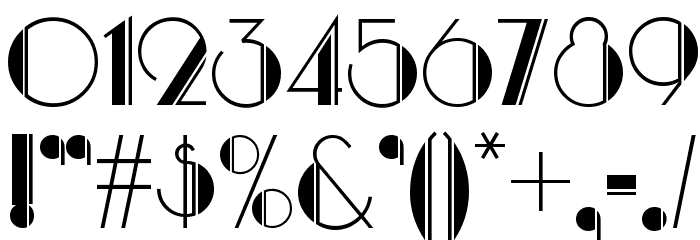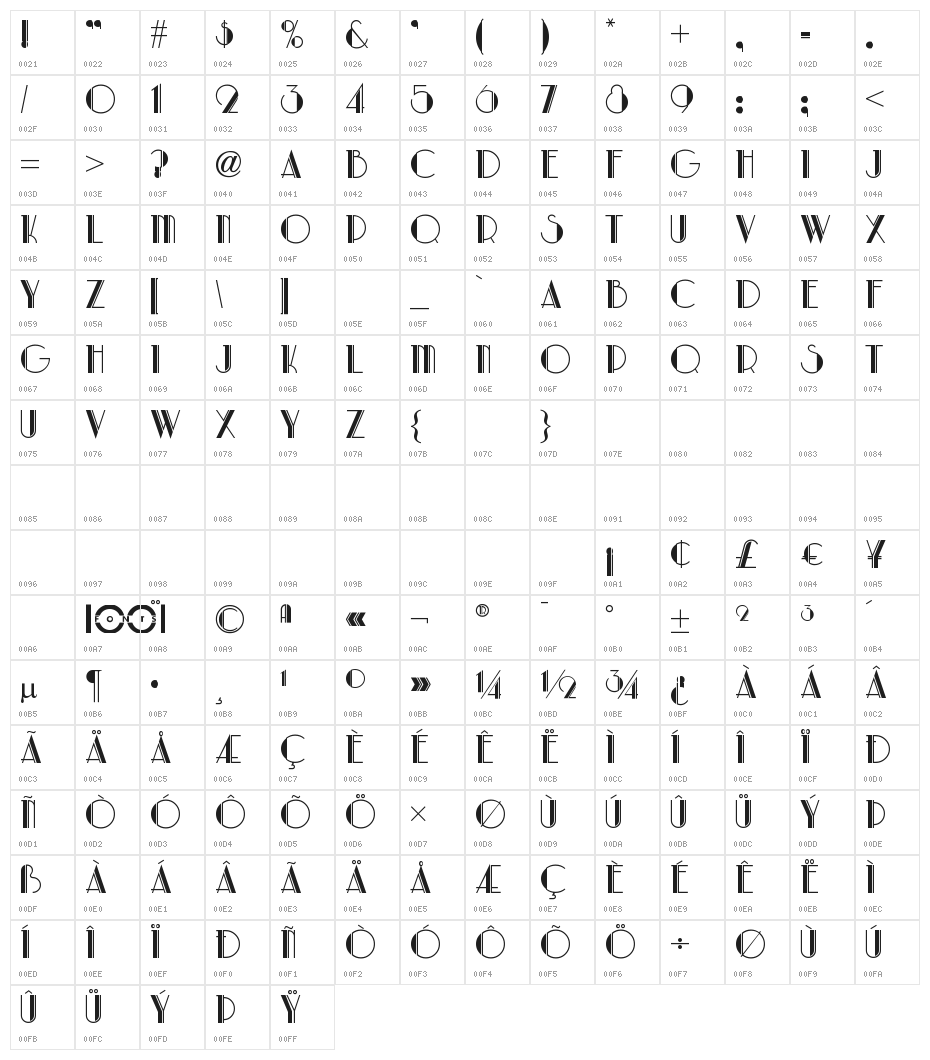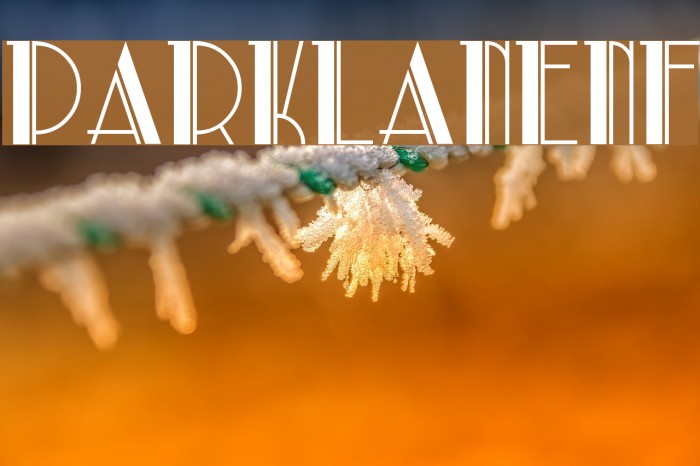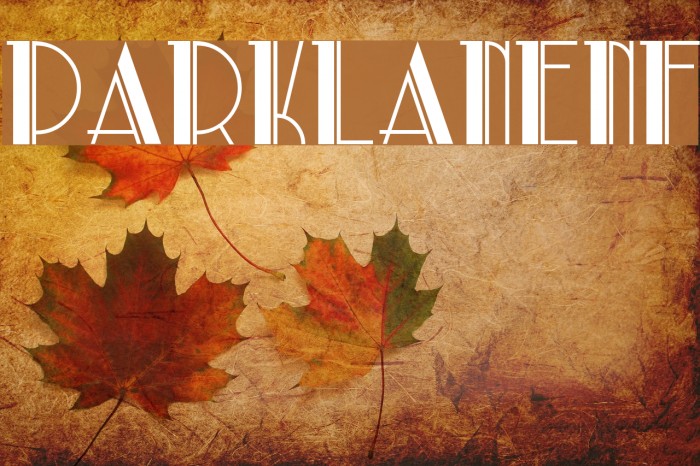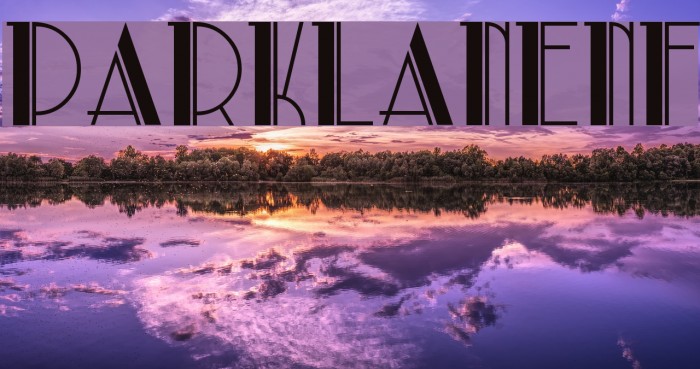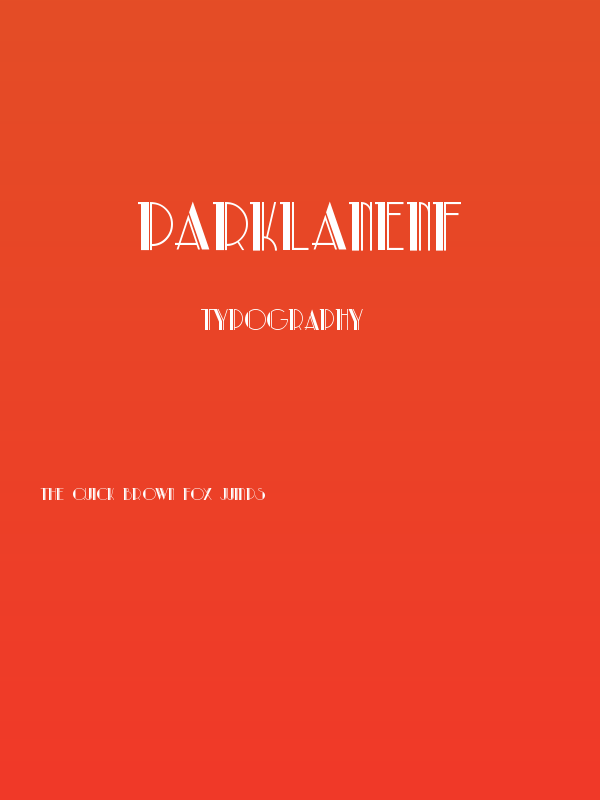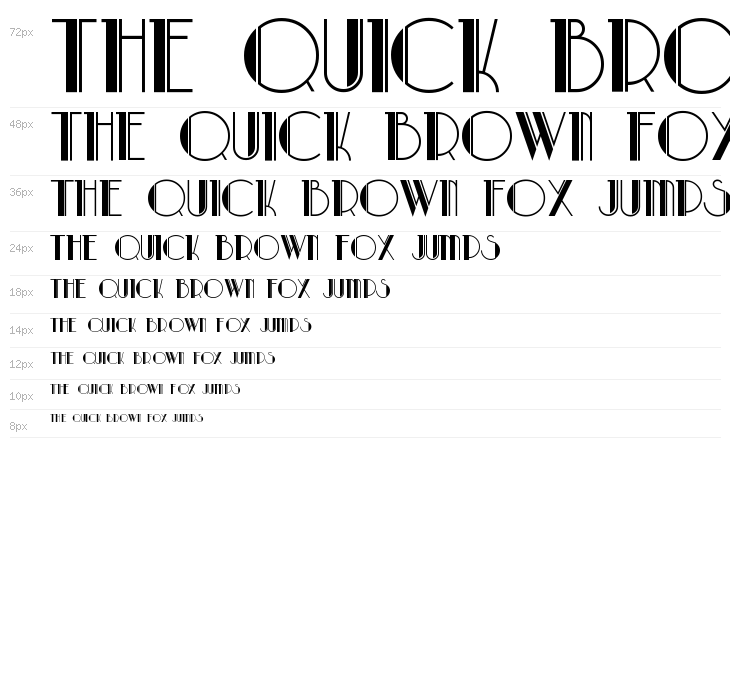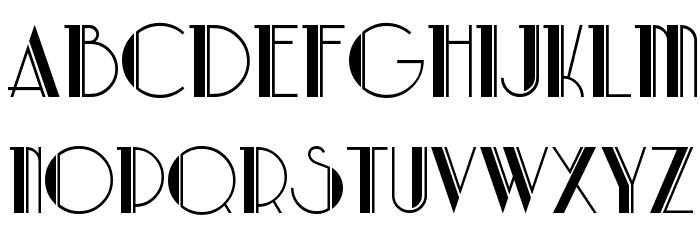
ParkLaneNF Font
✎ Art Deco
ParkLaneNF Description
This font features a striking Art Deco style with geometric shapes and high contrast between thick and thin strokes. The characters are elegantly elongated, with sharp angles and a sophisticated flair. The uppercase letters exhibit a bold presence, while the lowercase letters maintain a consistent aesthetic with a modern twist. Numbers and special characters follow the same design principles, ensuring a cohesive look across all text. The overall design is both decorative and functional, making it suitable for a variety of creative applications.